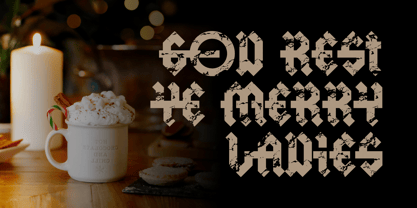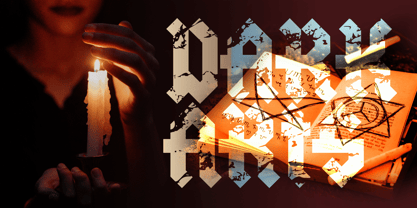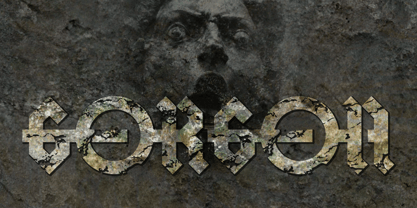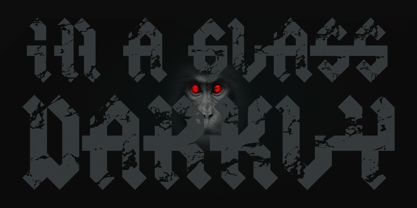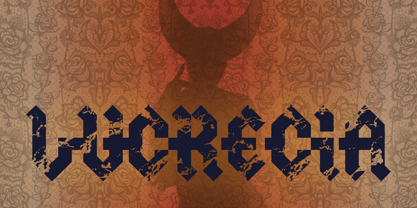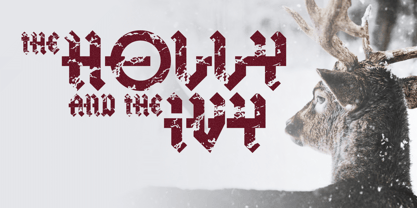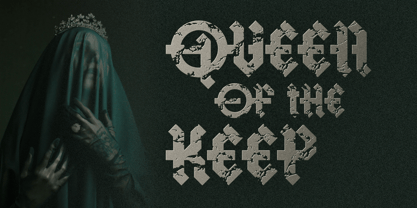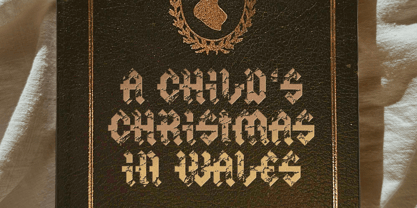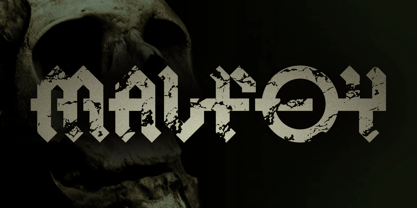
Malfoy
The Malfoy Font Family was designed by Michael Kovacevich and published by MKGD. Malfoy contains 1 styles.
Malfoy follows in the footsteps of Blackletter and Old English typefaces, with a few stylistic exceptions.
It’s overall structure, that mostly resembles square nibbed calligraphic letters, produces a dignified, formal, and ancient appearance. However, the addition of the occasional circular glyphs, add a softer, humanistic feel.
It also contains cross strokes, which both connect and separate. When coupled with a crumbling weathered finish, Malfoy possesses a timelessness that is not just dark, but romantic and wistful as well.
In the end, Malfoy is equally at home embellishing messaging, whether it be merry or menacing.